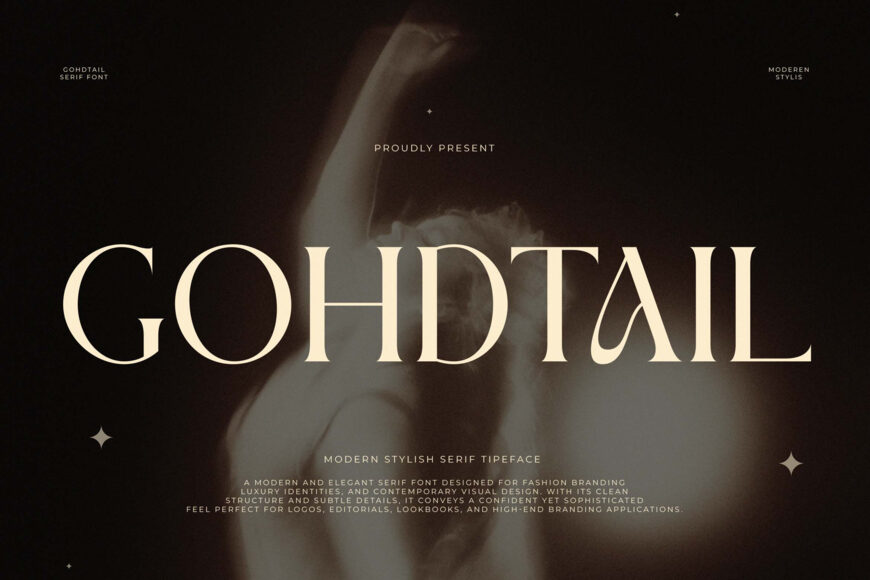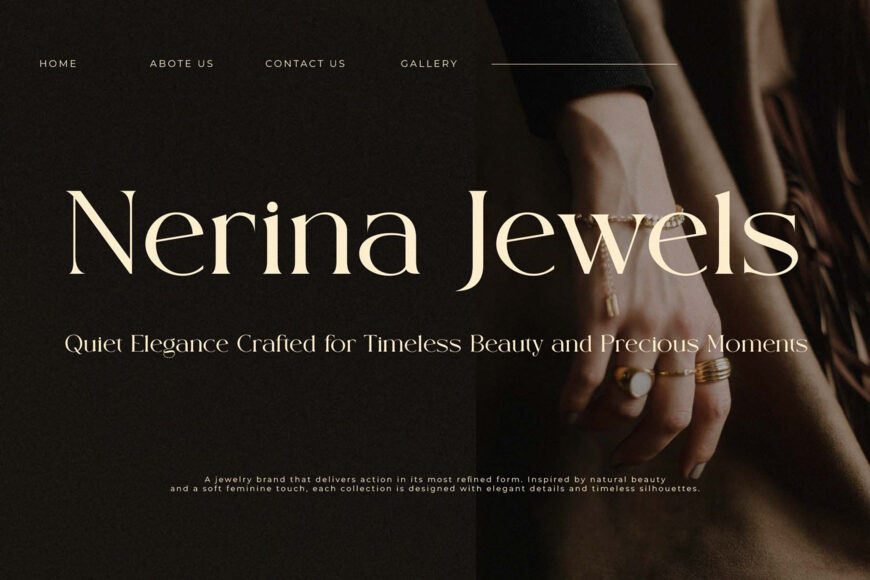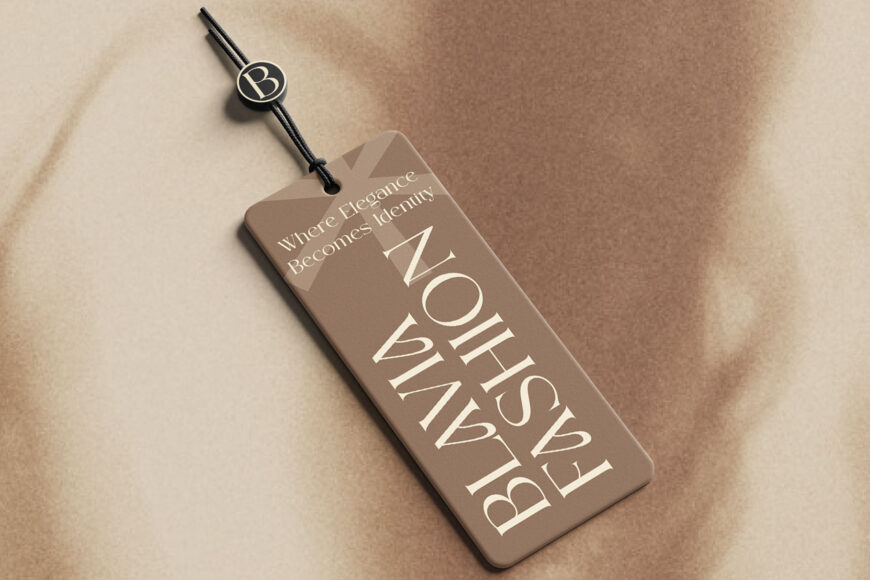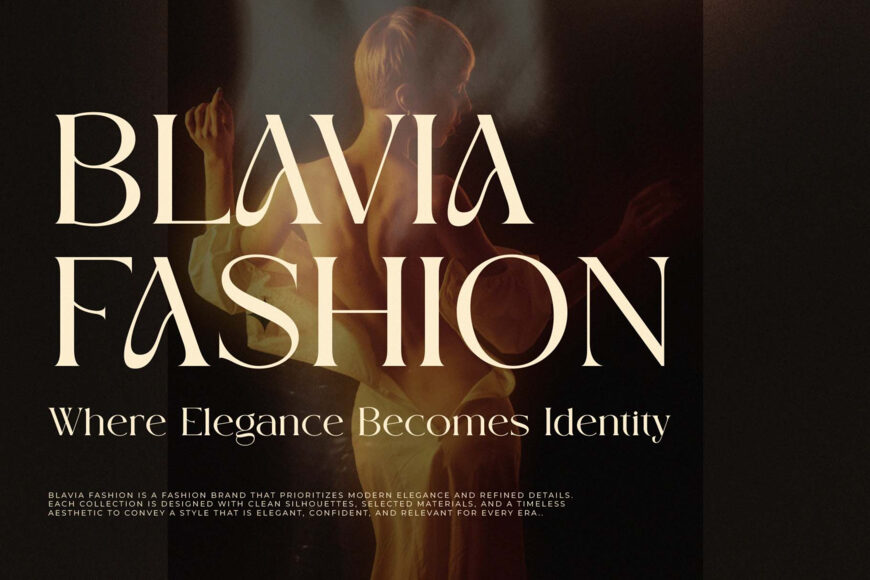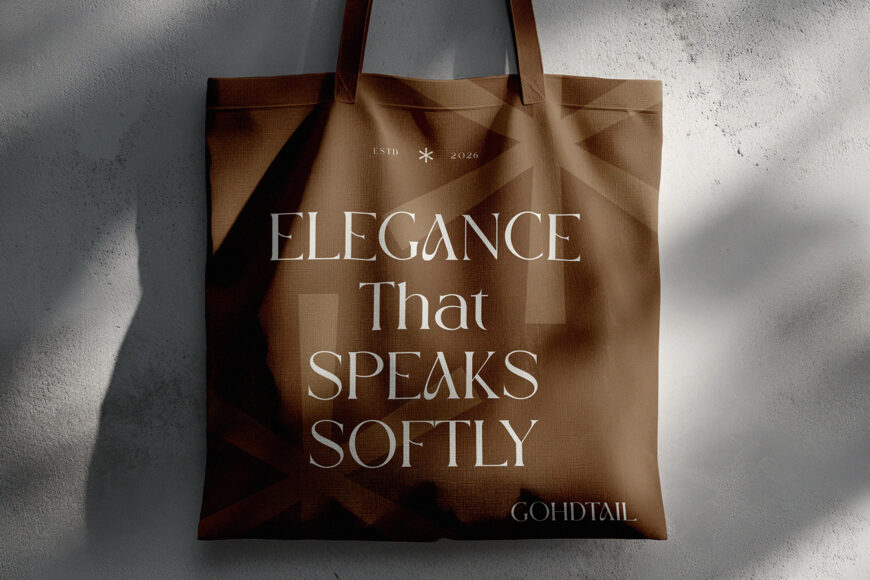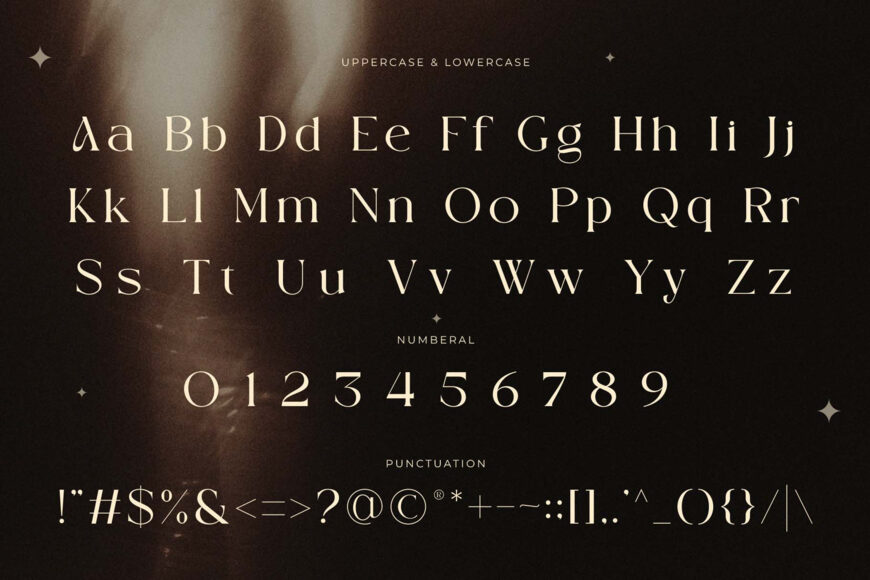
Gohdtail Font
Define the new standard of chic with Gohdtail, a modern stylish serif that captures a “refined-and-radiant” soul. This typeface features elegant, high-contrast letterforms characterized by rhythmic, sweeping curves and subtle, sharp terminals that bridge the gap between classic editorial heritage and contemporary minimalism.
With its confident structural weight and sophisticated personality, Gohdtail is the premier choice for independent fashion branding, luxury beauty identities, high-end lookbooks, and high-impact “stately-and-stylish” social media headers.